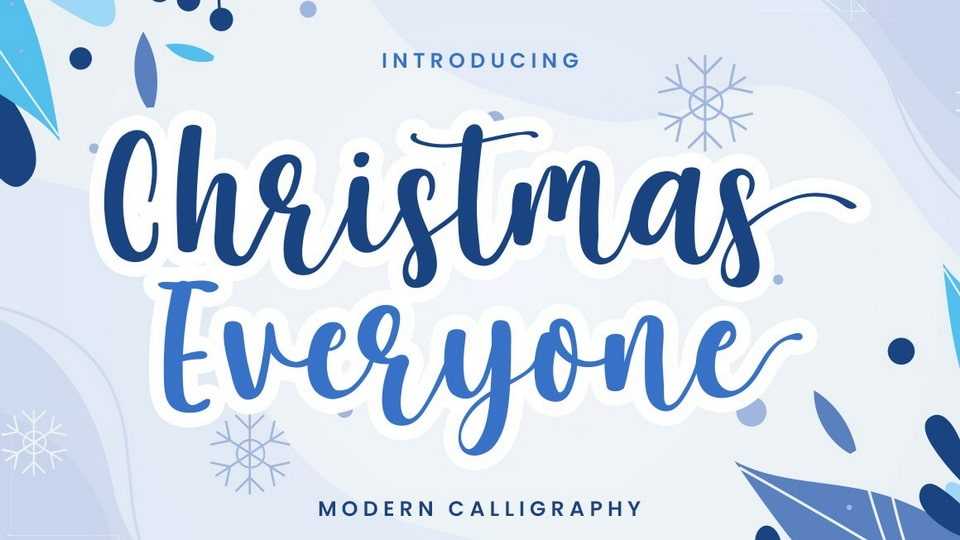
Download Christmas Everyone font, a beautiful and modern calligraphy typeface. It embodies playfulness and authenticity and is the perfect choice for any children activity or Christmas’s project.